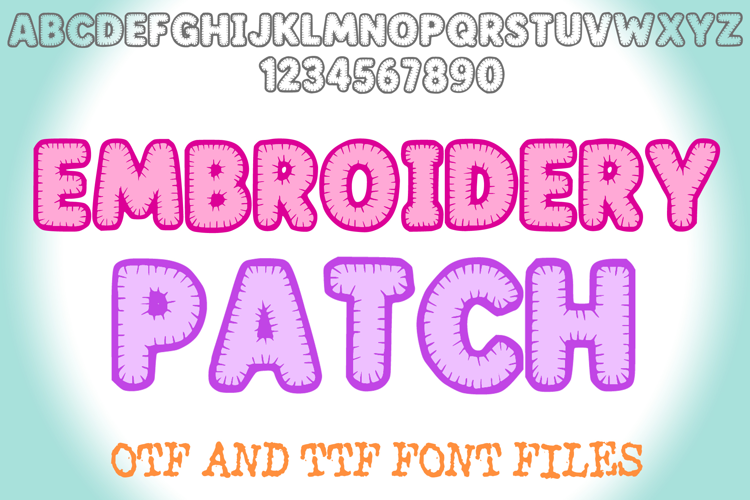
Alphabet Fonts
These alphabet fonts make the ABCs the main event, from the Letter Tiles family and the Outlined coloring book font to an embroidery patch alphabet and the playful Yeti Alphabeti. Monograms, calligraphy and cute handwriting such as Student Note round out these letter fonts, with over 2,000 to browse and OTF and TTF files in most.
Alphabet font styles and when to use each
The sections on this page sort letters by job. Uppercase fonts and Capital Letter Fonts give titles, signs and name banners a strong line, Lowercase Fonts read softer on labels and kids' projects, and the Serif Font Alphabet section suits formal invitations. Backwards Fonts, Keyboard Fonts and Writing Fonts cover more unusual layouts and everyday handwriting.
Specific fonts point to specific projects. Outlined has open letters you can color in for activity pages, the embroidery patch alphabet gives shirts and bags a sewn-badge look, Monogramia 2 handles initials, and Letter Tiles fits word games and classroom name cards. To use them on a tablet, follow our iPad font install guide. You can also browse Small Fonts, Tiny Fonts and Cool Fonts.